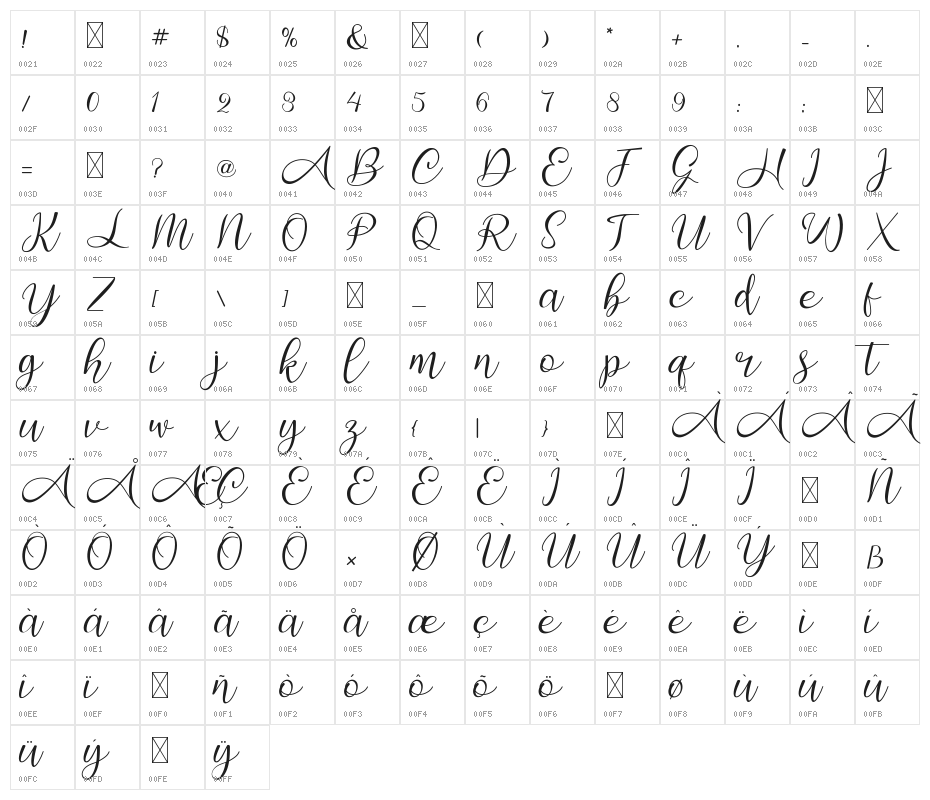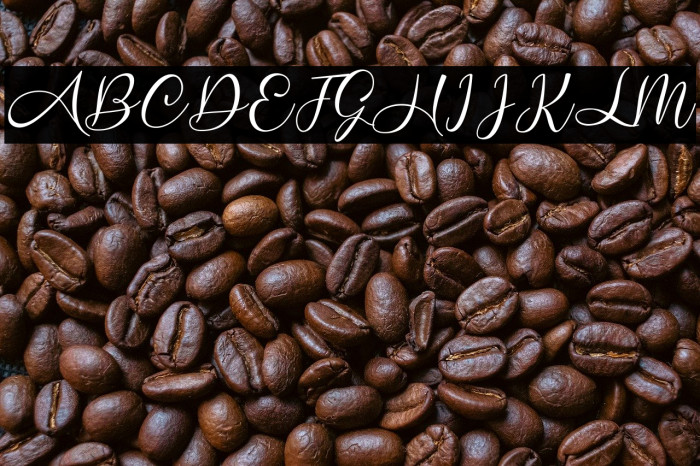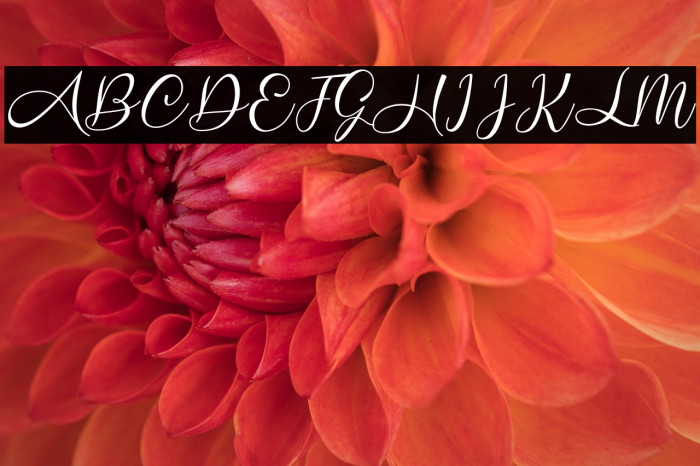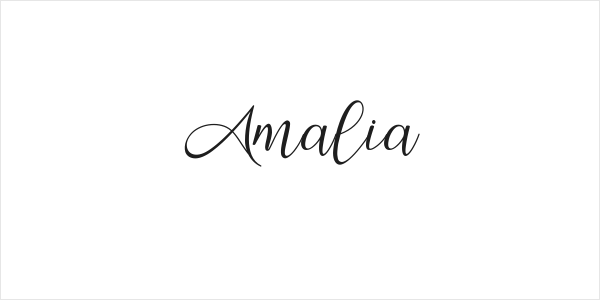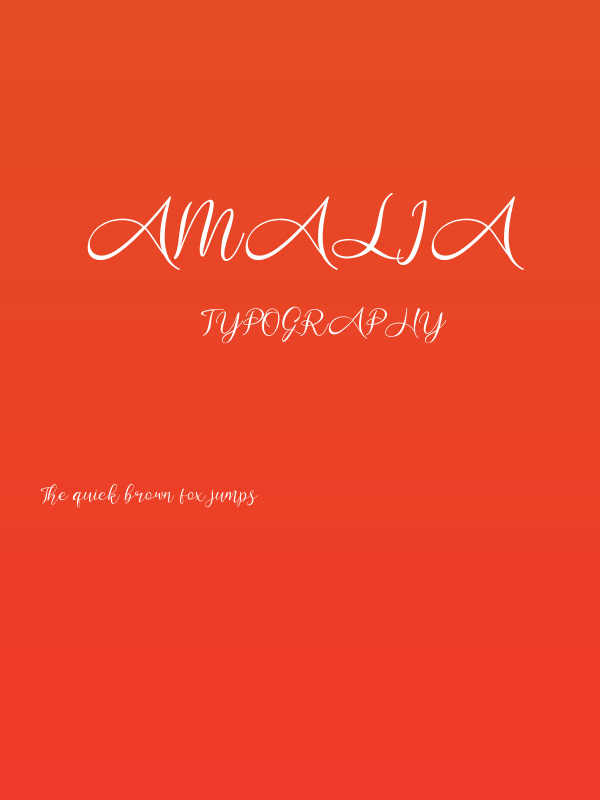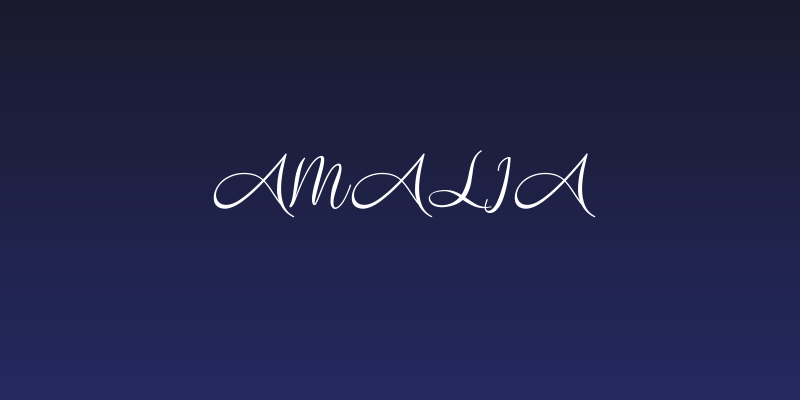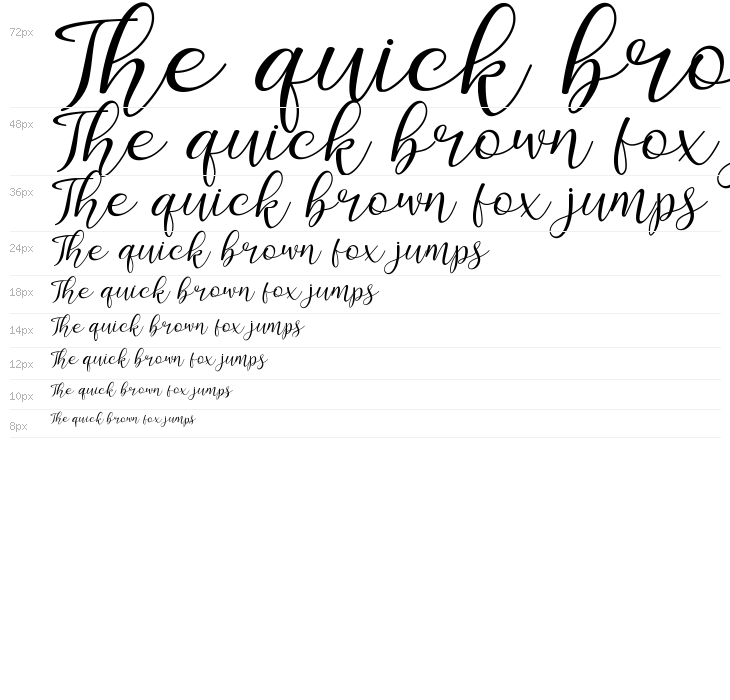
Amalia Font
Amalia Description
This elegant script font features flowing, cursive letters with a graceful and sophisticated appearance. The uppercase characters are characterized by sweeping curves and loops, while the lowercase letters maintain a consistent fluidity, enhancing readability. The numerals are distinct and stylish, complementing the overall design. The special characters are crafted with the same attention to detail, making them suitable for various decorative purposes. This font exudes a sense of elegance and charm, making it ideal for formal invitations, branding, and artistic projects.
| Use Case | Invitations, Branding, Artistic designs |
| Proposed Projects | Ideal for wedding invitations, branding, greeting cards, and artistic designs. |